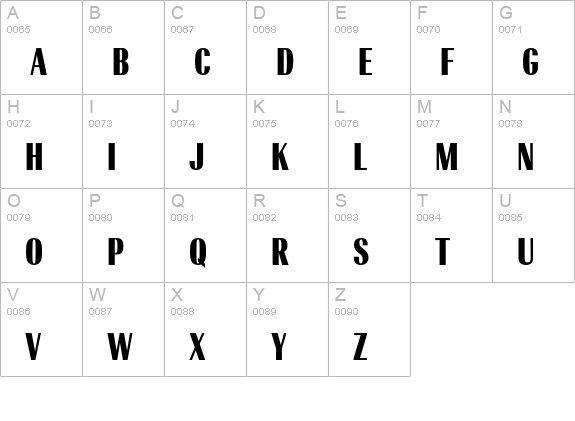
RadiantEFDisplay-CondNo3 Font Details
RadiantEFDisplay-CondNo3 is a breathtaking font that will add a touch of elegance and sophistication to any design project. With its sleek and modern style, this font is perfect for creating eye-catching headlines, logos, and branding materials. Featuring a condensed and bold design, RadiantEFDisplay-CondNo3 exudes confidence and strength. Its clean lines and well-defined curves make it highly versatile, suitable for both print and digital media. What sets RadiantEFDisplay-CondNo3 apart is its availability as a free download at FontsMarket.com. This means that you can enhance your designs without having to worry about any additional costs. Whether you're a professional designer or a hobbyist, this font is freely accessible to all, making it an excellent choice for various projects. RadiantEFDisplay-CondNo3 is not only visually striking but also highly legible, ensuring that your message is conveyed clearly and effectively. Its wide range of characters and glyphs allow for creative and expressive typography, making it a valuable asset for any design toolkit. Download RadiantEFDisplay-CondNo3 today from FontsMarket.com and unlock the unlimited potential it offers. Transform your designs and captivate your audience with this remarkable font that effortlessly combines style, elegance, and the convenience of being freely available to all.